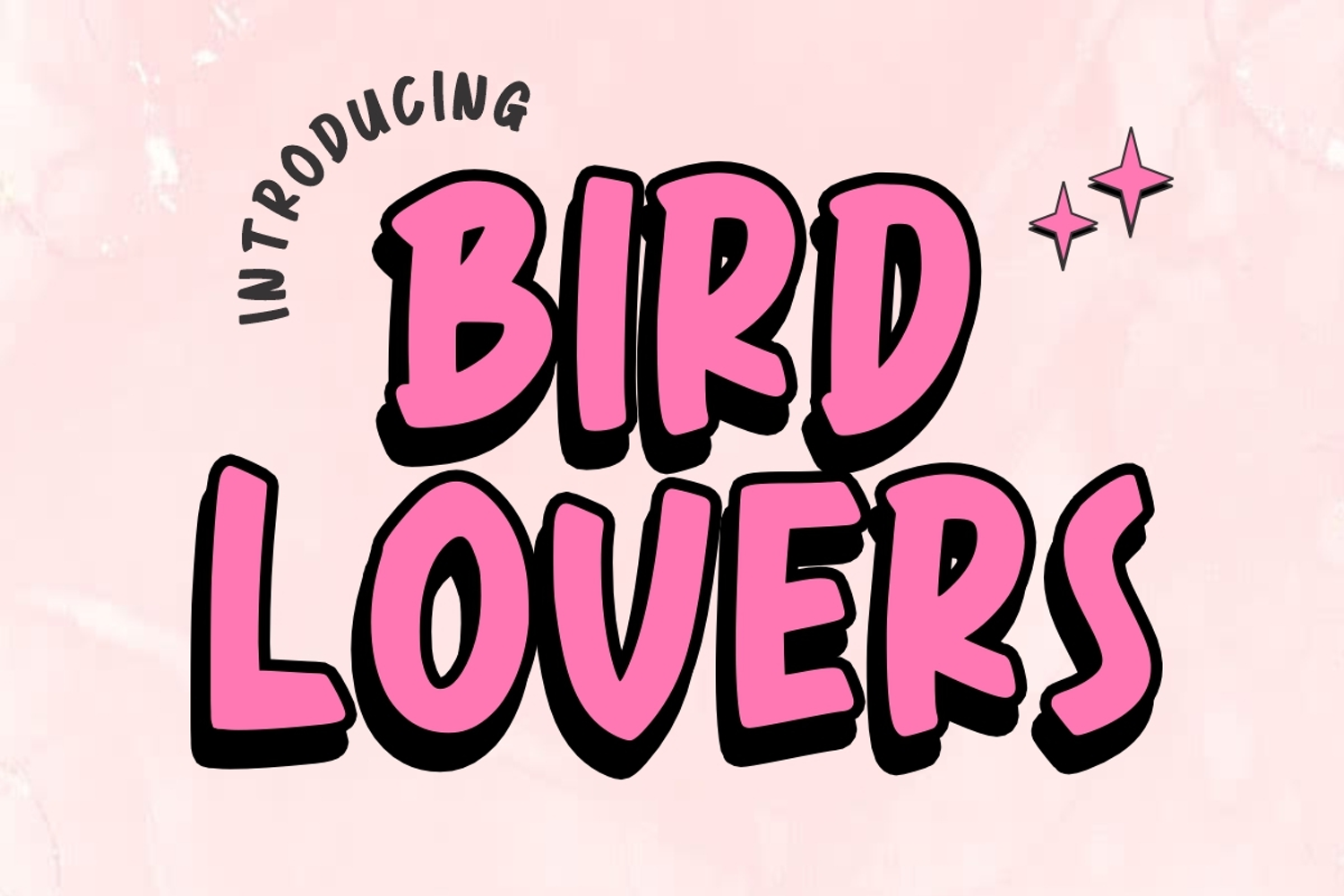
Bird Lovers
Bird Lovers is a cute, simple and friendly kids font. Its informal style and casual vibe will make this font a go-to choice for each of your creations that require a relaxed touch.
It is suitable for any product packaging, invitation, quote, t-shirt, label, posters, logos that you wish to develop!